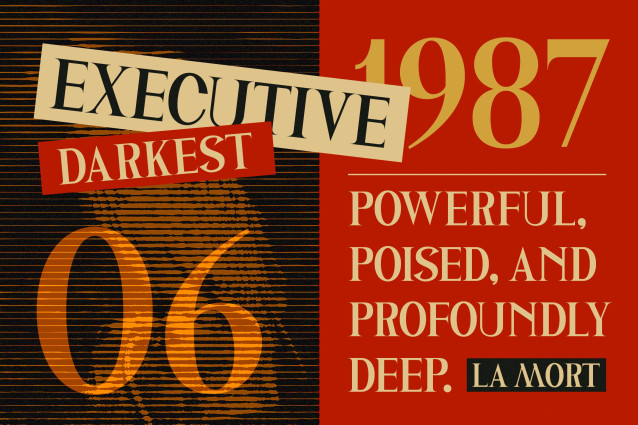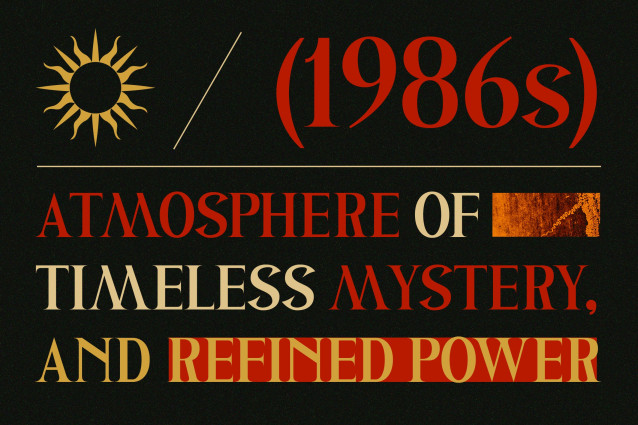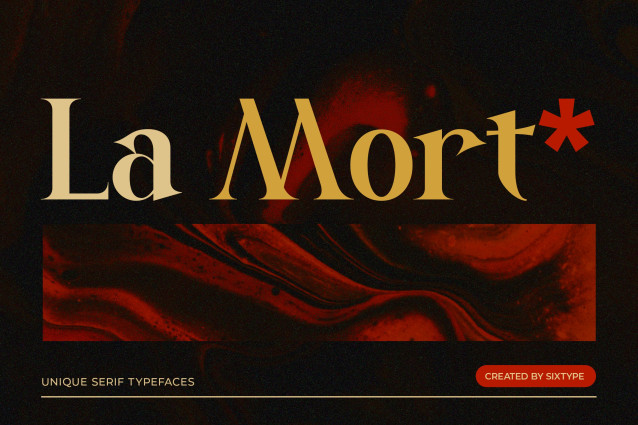
La Mort – Font
La Mort is a bold and atmospheric serif typeface that embodies timeless drama and refined power. With its high-contrast strokes, sharp sculptural serifs, and expressive curves, it evokes a cinematic elegance grounded in classic typography while embracing a modern, edgy tone. The letterforms exude a strong personality mysterious, confident, and slightly gothic making it perfect for statement-driven design.
Whether utilized in luxury branding, editorial headlines, posters, or artistic direction, La Mort offers a commanding presence with rich emotional depth that captivates and endures. This versatile typeface is ideal for creating impactful visuals that resonate with audiences.